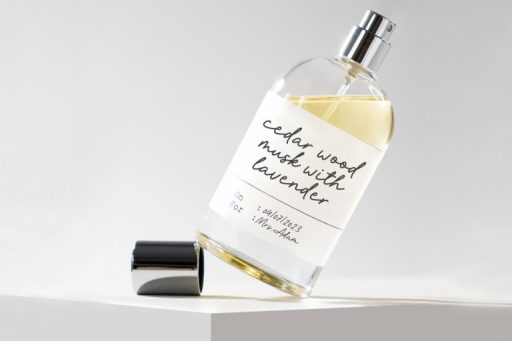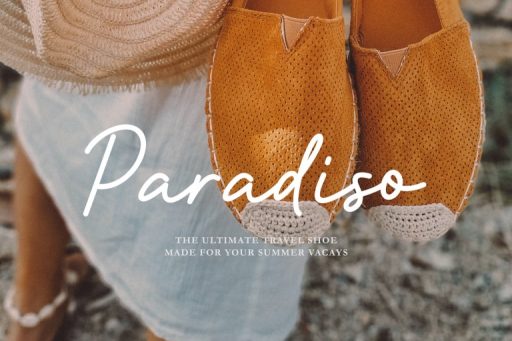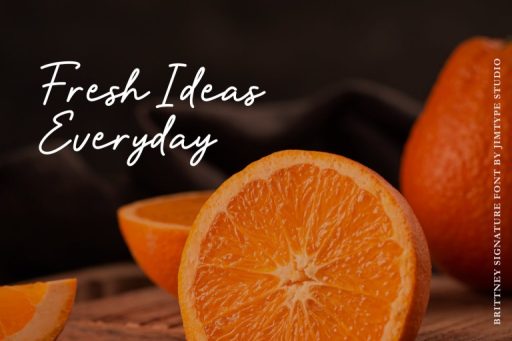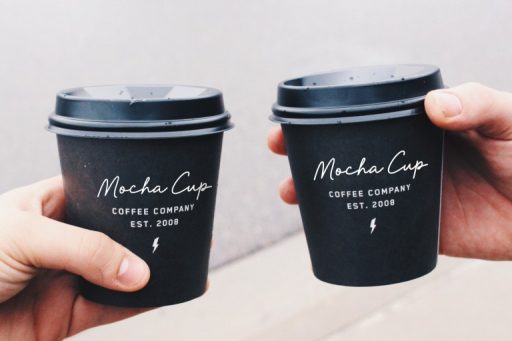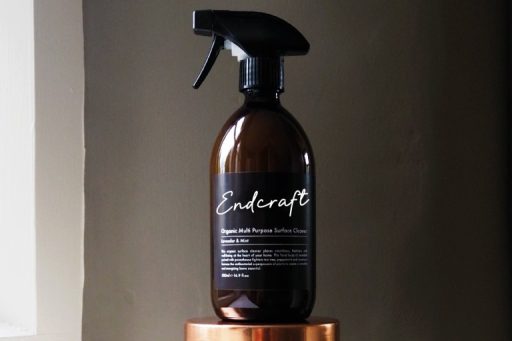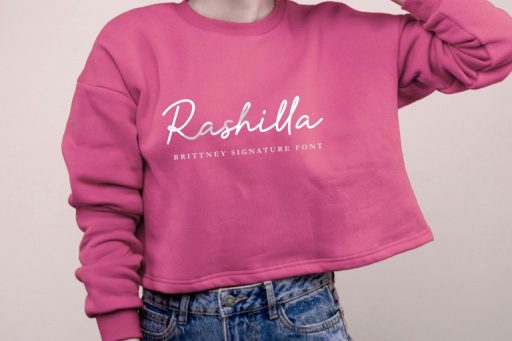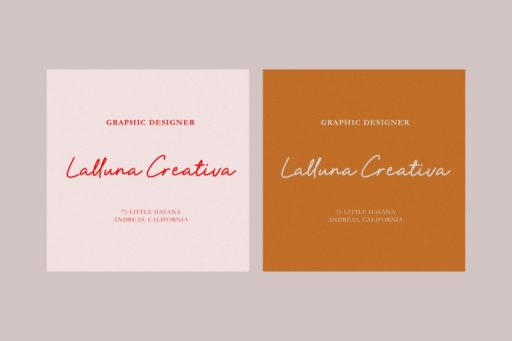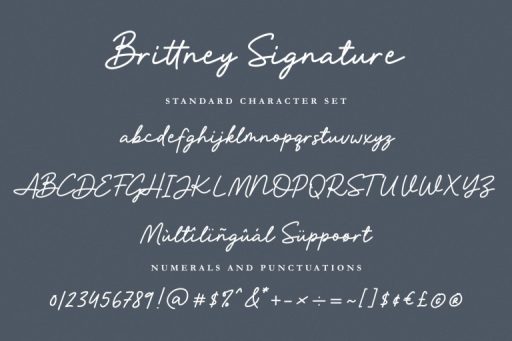
Brittney Signature Font
Brittney – Signature Business Font
Brittney Signature is a monoline signature font with an elegant style in bold size. Great for a branding project, logos, social media labels, business cards, packaging, quotes, headline, and much more!
• Multilingual Support